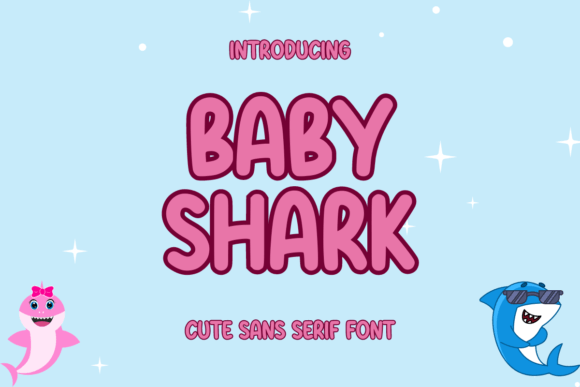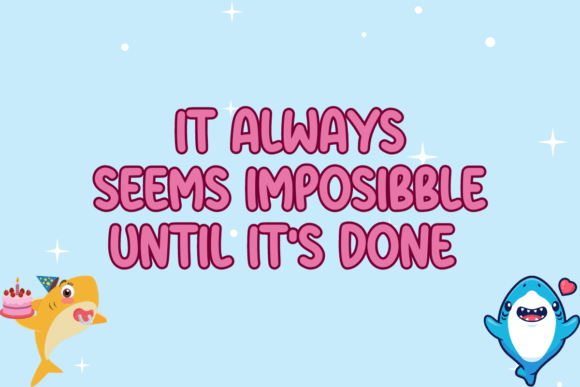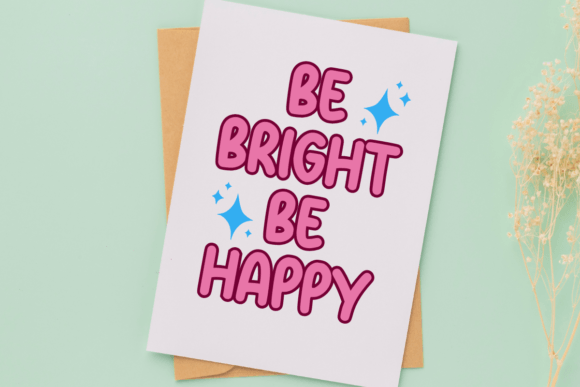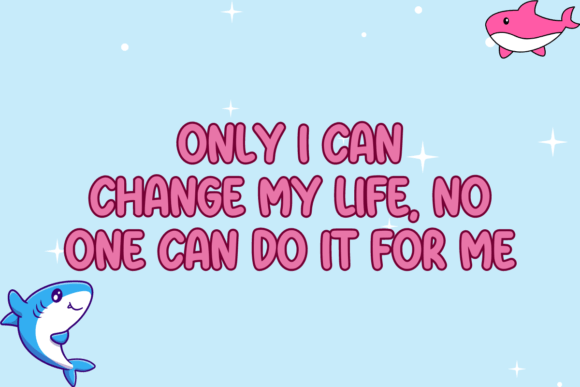
Baby Shark Font: A Cute & Playful Sans Serif for Cricut Crafting
About the Baby Shark Font
Unleash your creativity with Baby Shark Font, a versatile font perfect for a wide range of applications. Baby Shark is a cute sans serif font that is suitable for perfecting your creative projects such as stickers, notes, planners, SVG quotes, t-shirts, wall art, Cricut, craft, embroidery, posters, cards, and many other ideas.
Its playful, rounded forms make it ideal for children’s products, branding for playful businesses, and projects requiring a friendly, approachable aesthetic. It excels in headlines, short text blocks, and logos, adding a touch of youthful energy. However, its low x-height makes it less suitable for body text or UI elements where readability is paramount.
Pair Baby Shark with a clean sans-serif like Open Sans for a balanced contrast, or a classic serif like Playfair Display for a more sophisticated feel. A handwritten script font could also add a charming, handcrafted touch, depending on the overall design goal.
The font’s core personality is undeniably cheerful and approachable, making it a strong choice for brands targeting a young or family-oriented audience.